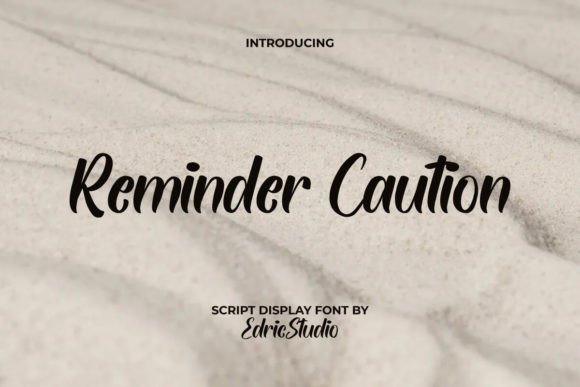
Step into a world of captivating charm with Reminder Caution Font, the script font that exudes elegance and sophistication. Its exquisite design, characterized by varying letter thicknesses, offers unparalleled readability and versatility, making it the perfect choice for a wide array of industries seeking a touch of timeless allure.
Unleash your creativity in the realm of art galleries, where Reminder Caution's graceful strokes bring life to your captivating artworks. Elevate your boutique's presence with a touch of sophistication, as this font adds a hint of luxury to your branded materials. Embark on a journey of beauty and grace in the world of cosmetics, where Reminder Caution's delicate curves enhance the charm of your packaging and branding.
Transform your homeware into objects of desire with Reminder Caution's stylish touch, creating an ambiance of warmth and elegance in every room. Allow your hotel's reputation to soar as Reminder Caution weaves a tapestry of sophistication throughout your promotional materials and signage. Let Reminder Caution's alluring script illuminate the brilliance of your jewelry, captivating customers with its timeless beauty.
Capture the essence of timeless moments with Reminder Caution in your photography, as its graceful lines add a touch of nostalgia and charm to your captured memories. Enchant your restaurant's ambiance with Reminder Caution's delicate script, creating an atmosphere of culinary enchantment. Experience tranquility and rejuvenation as Reminder Caution graces the branding of your spa salon, inviting clients to immerse themselves in a world of serenity and indulgence.
Whatever your industry, Reminder Caution's versatility and beauty will leave an unforgettable impression. Embrace the allure of script typography and elevate your brand to new heights with this captivating font. Download Reminder Caution today and embark on a journey of creative exploration, where imagination meets elegance.